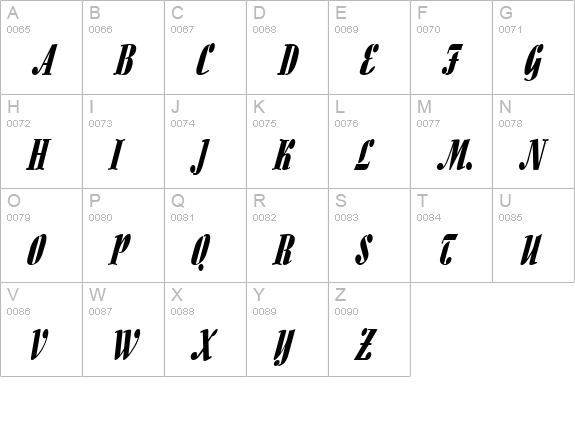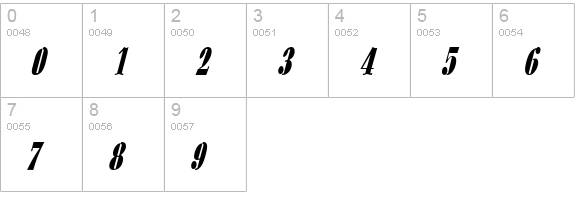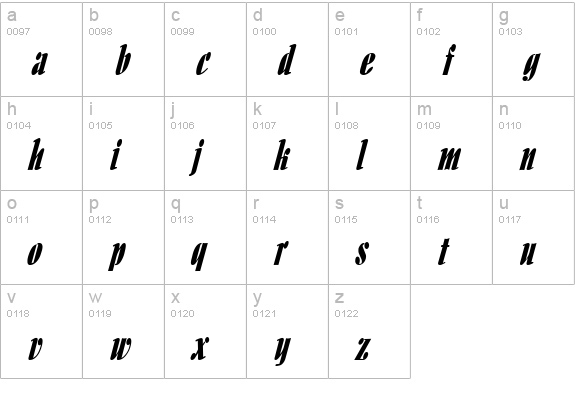
Aloe-Condensed Italic Font Details
Aloe-Condensed Italic is a distinctive, condensed-width, italic variant in the Aloe typeface family \xE2\x80\x94 well suited to design and typography projects.
Introducing Aloe Condensed Italic font - a sleek and modern typeface that exudes sophistication and elegance. Its stylish italicized design adds a touch of flair to any project, making it a versatile choice for both professional and creative purposes. The condensed form of the font allows for efficient use of space without compromising readability. This font is perfect for branding, editorial design, and any project that requires a contemporary and refined look. Whether you're designing a logo, creating marketing materials, or crafting a stylish website, Aloe Condensed Italic font will elevate your work to the next level. Best of all, this font is free to download at FontsMarket.com. So why wait? Add Aloe Condensed Italic font to your font library today and unlock a world of design possibilities.